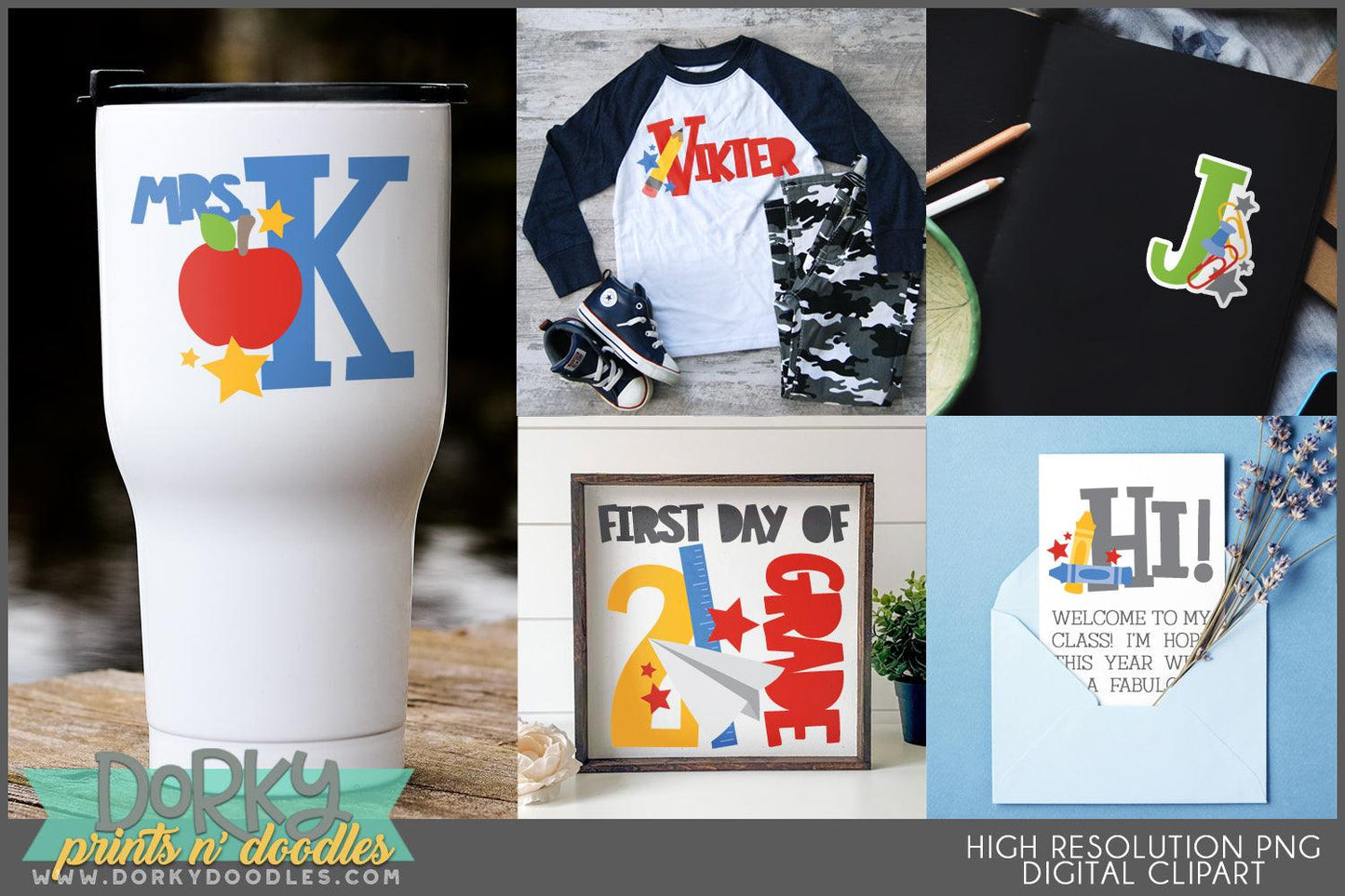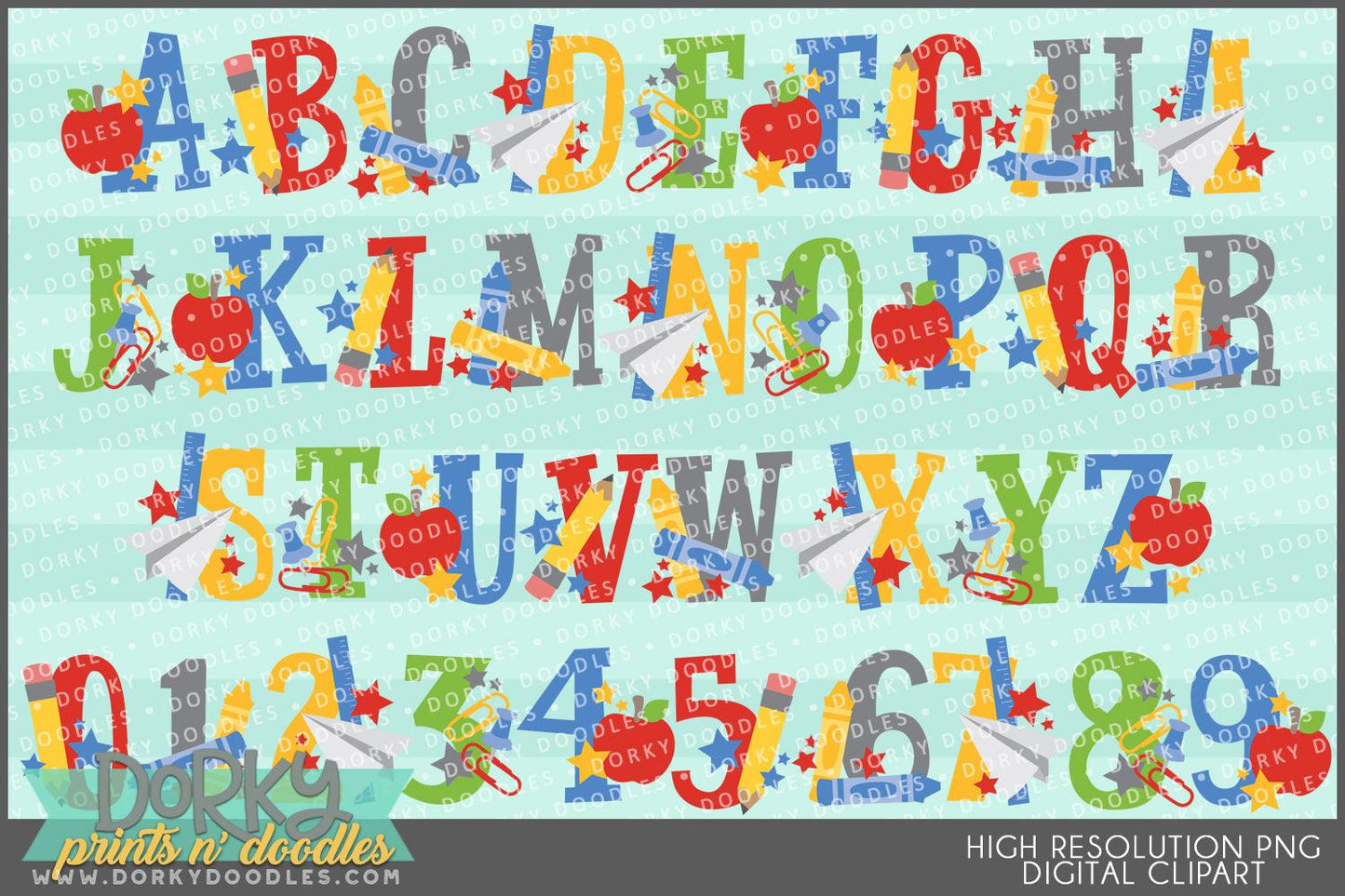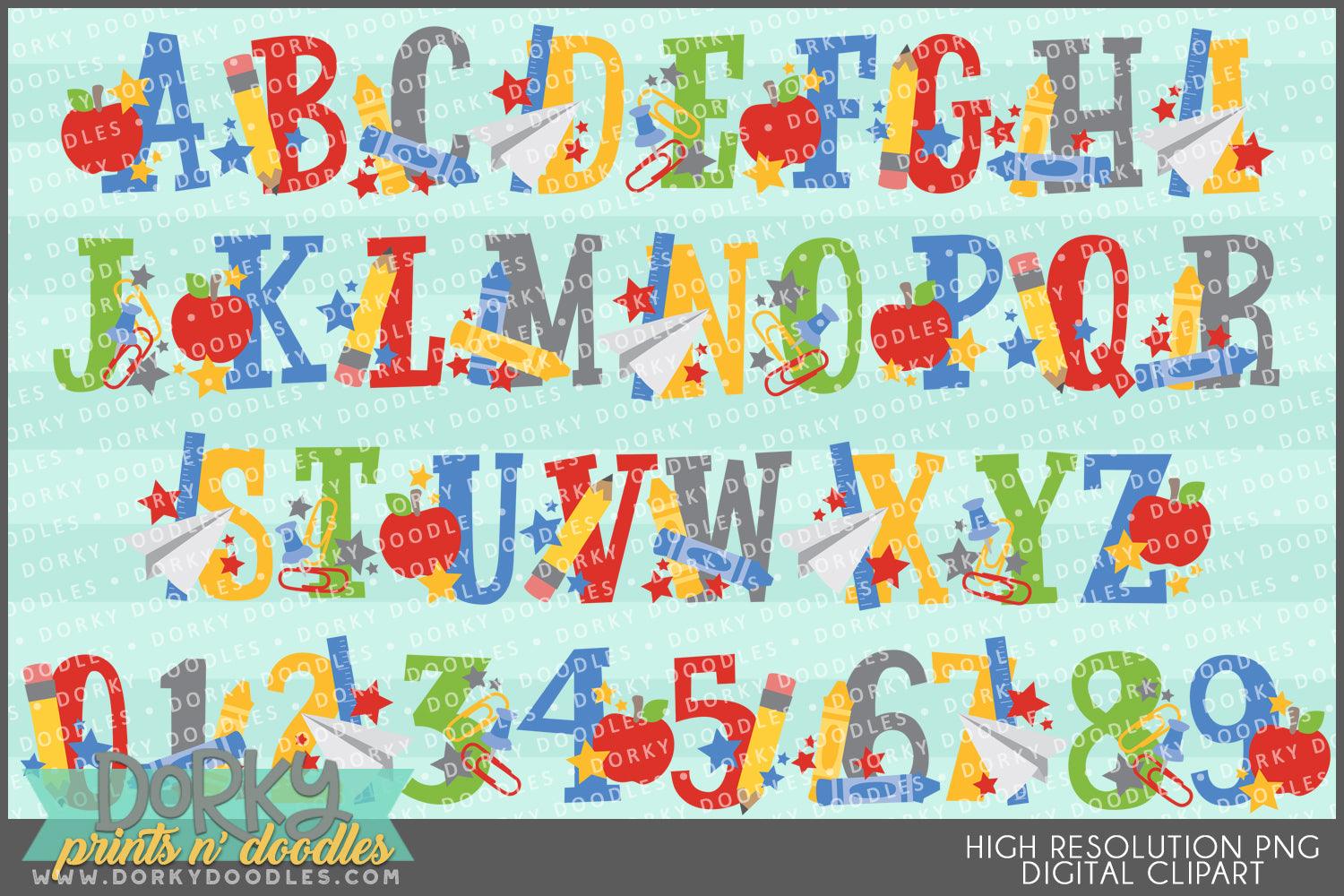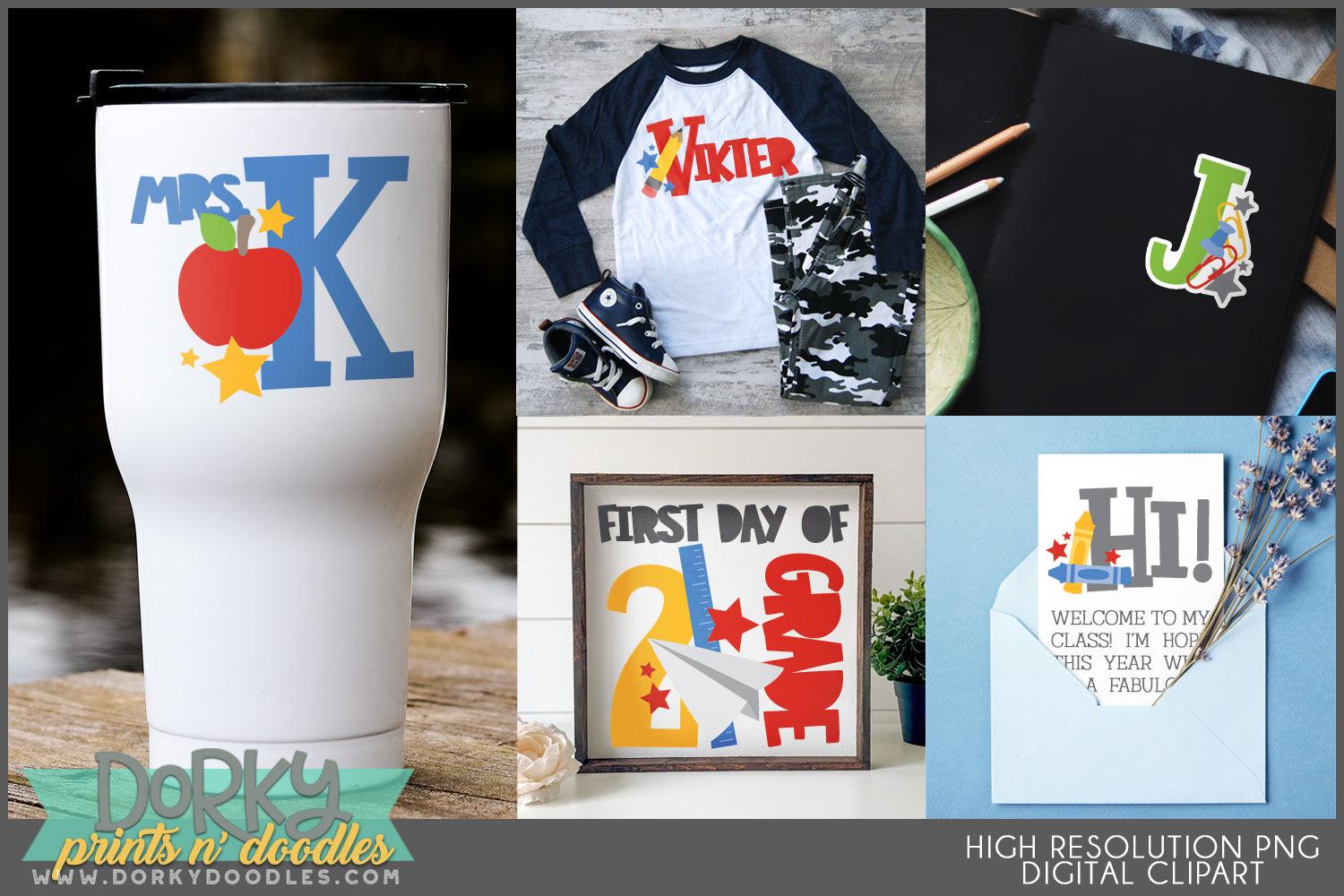
Back to School Alphabet Clipart
Looking to add a fun spark to your projects? What could be better than these cute classroom letter and number clipart images and frames? Perfect for your party invitations, cookies, stickers, sublimation, planners, scrapbooking projects and more! You will get 36 Digital Clip Art images in high resolution PNG format (they come as a ZIP file that you can download instantly once payment has cleared).
• the full alphabet and the numbers 0-9 featuring pencils, crayons, paper airplanes, apples, paperclips, and More